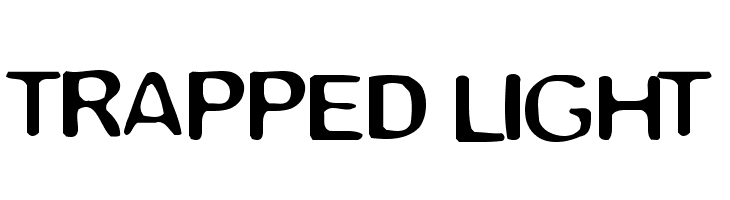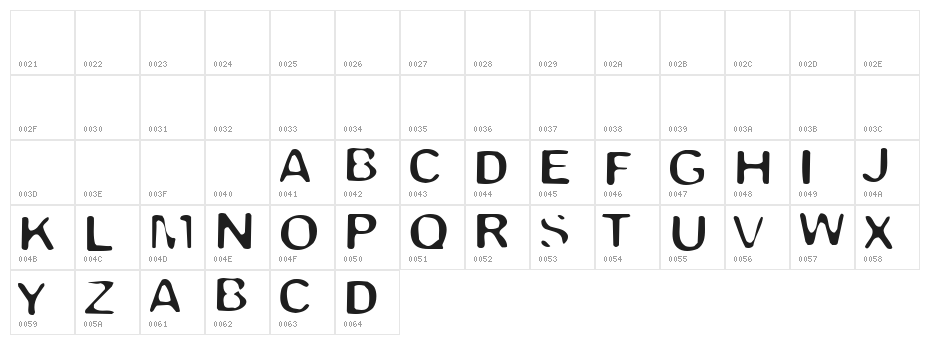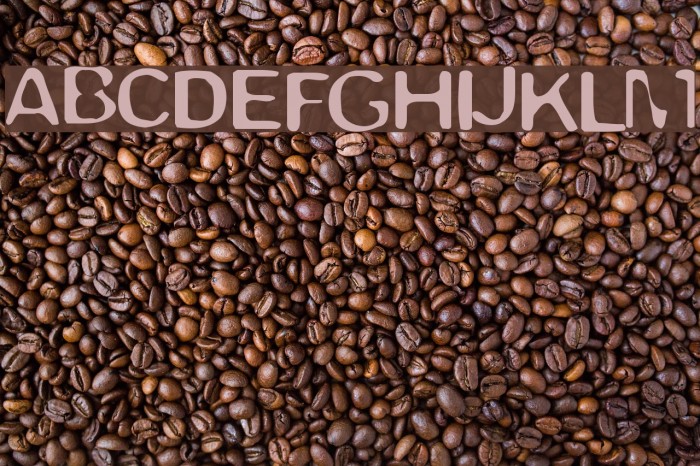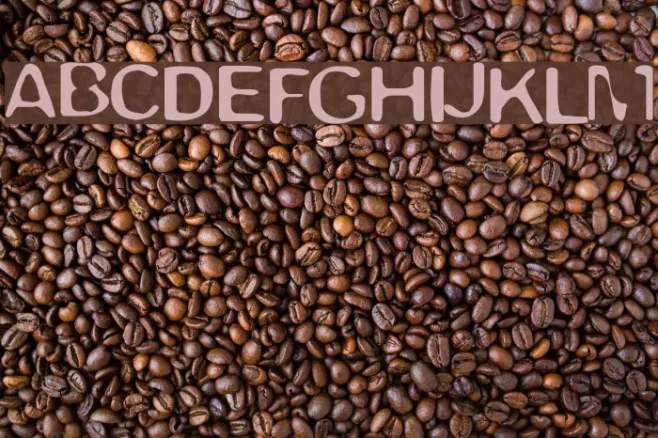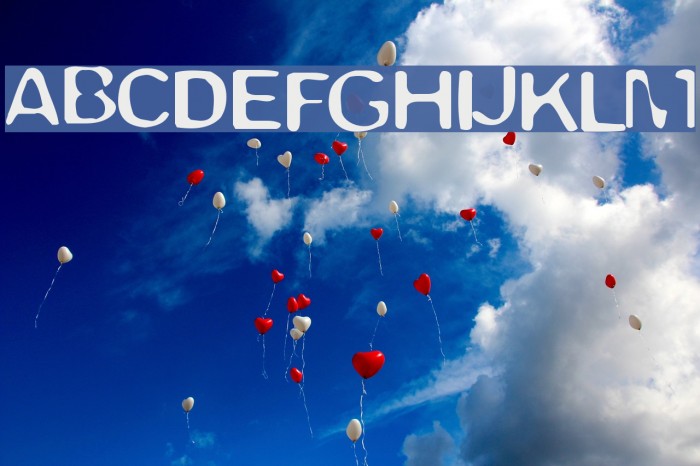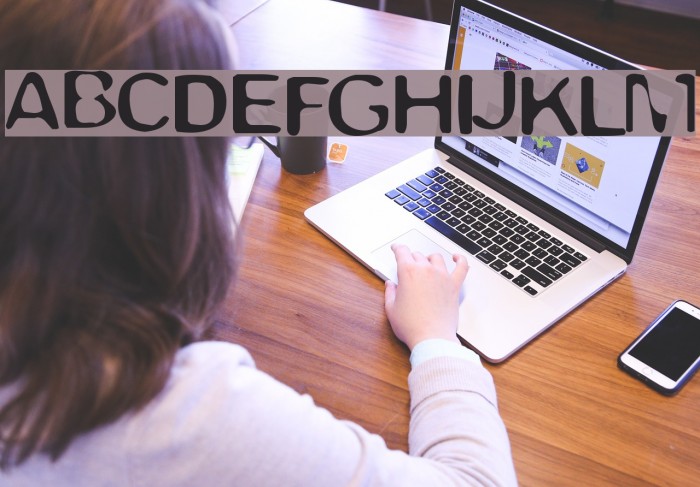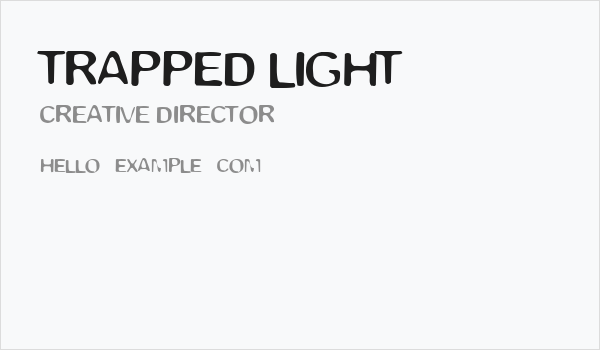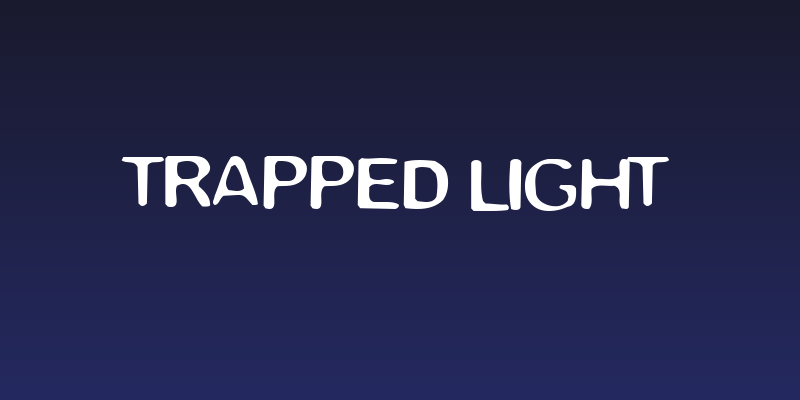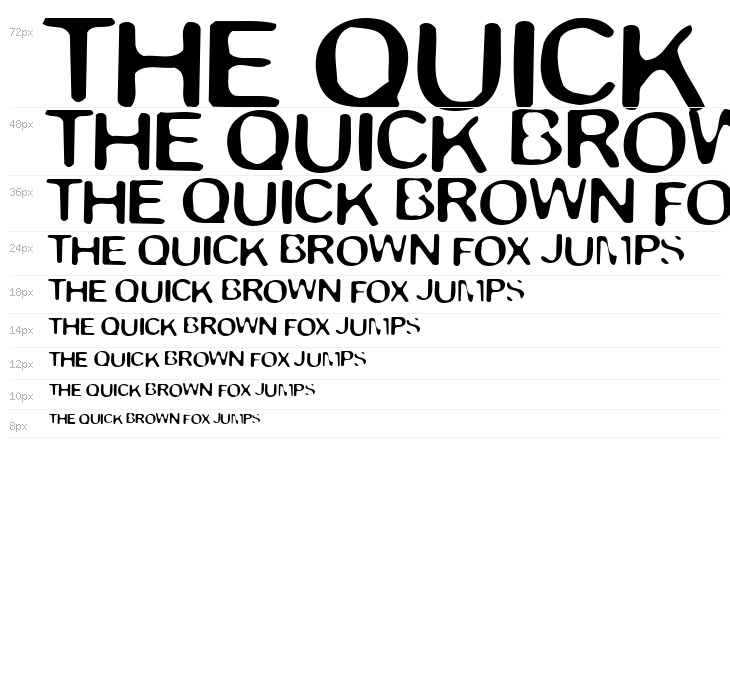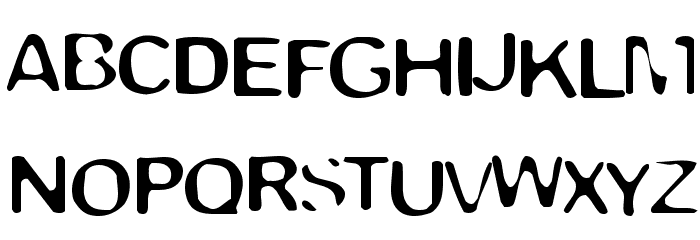
Trapped Light Font
Trapped Light Description
This font features a unique and artistic design with a playful yet structured appearance. The characters are bold and have a distinct, almost stencil-like quality with varying stroke thicknesses that create a sense of movement and energy. The uppercase letters are particularly striking, with some characters featuring unexpected curves and angles that add to the font's dynamic nature. The overall look is modern and slightly futuristic, making it suitable for creative and innovative projects. The spacing between characters is relatively tight, enhancing the compact and cohesive feel of the text.
| Proposed Projects | Ideal for branding, posters, album covers, and creative digital media. |